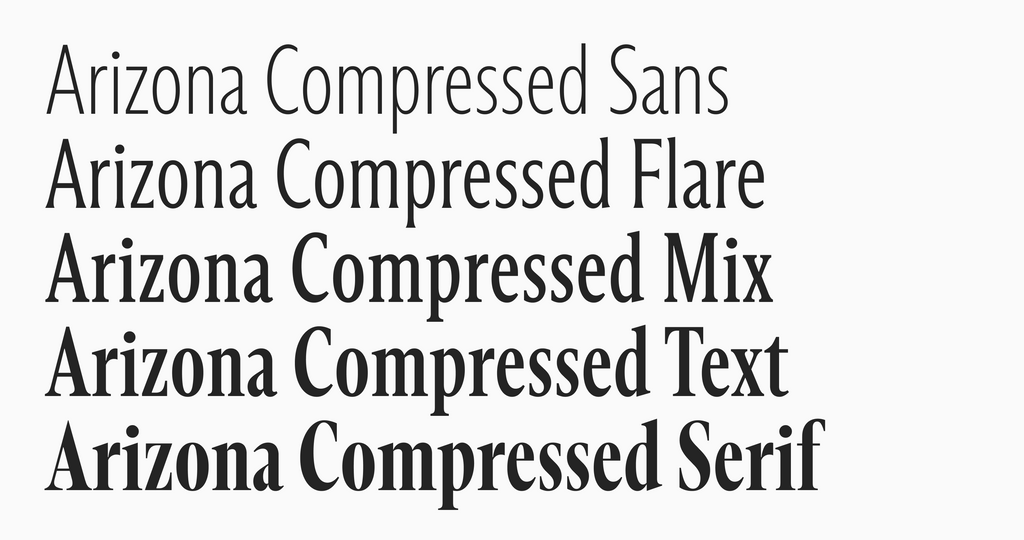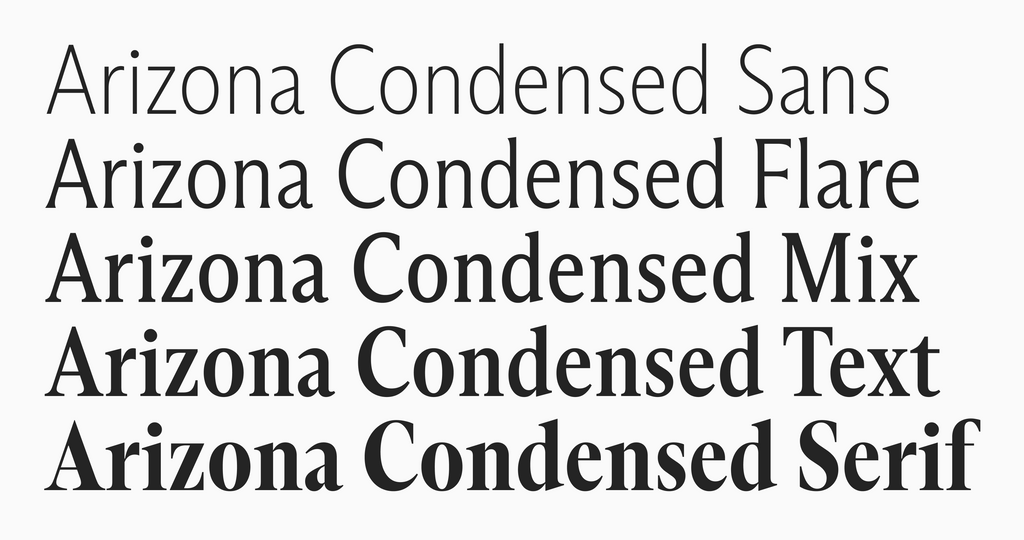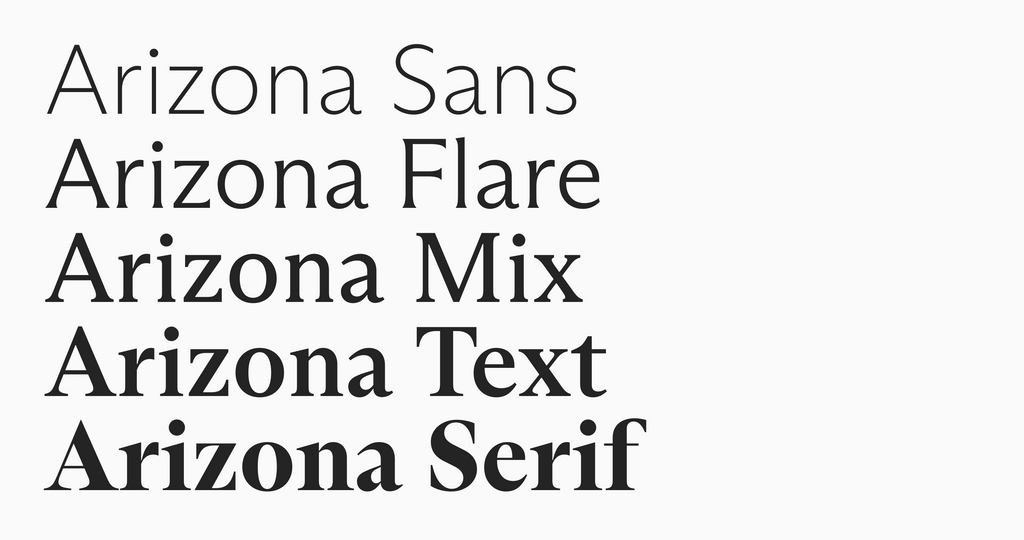
Arizona’s Design Space
Overview
ABC Arizona is a superfamily with 5 genres and 150 styles, split between 3 widths:
- Arizona
- Arizona Condensed
- Arizona Compressed
Each comes with Thin, Light, Regular, Medium, and Bold weights, plus Italics.
Five in One
The whole idea about Arizona is that it merges five genres into a single unified, family, organized into five subfamilies: Serif, Text, Mix, Flare, and Sans.
Sans -> Serif
Within each width, you can move seamlessly between sans and serif across five distinct genres: Sans, Flare, Mix, Text, and Serif.
So within the Condensed width, you have:
- Arizona Sans Condensed
- Arizona Flare Condensed
- Arizona Mix Condensed
- Arizona Text Condensed
- Arizona Serif Condensed
Same goes for the Compressed width:
- Arizona Sans Compressed
- Arizona Flare Compressed
- Arizona Mix Compressed
- Arizona Text Compressed
- Arizona Serif Compressed
The Variable Fonts
As the design space is very large, and you might not need all of it, we organized different sections of Arizona into different variable font files. There are four tiers.
Superfamily
This package contains e.v.e.r.y.t.h.i.n.g aka has the entire designspace in one file. It covers all four variable axes: weight (wght), slant (slnt), serif (SRFF), and width (wdth). We offer this package as a trial font, so you can discover the entire range and decide which axes you actually need.
Single-width VFs
All five genres at a fixed width:
- ABC Arizona Variable
- ABC Arizona Condensed Variable
- ABC Arizona Compressed Variable.
Variable axes:
weight (wght), slant (slnt), and serif (SRFF).
Multi-width VFs
All three widths at a fixed genre position:
- ABC Arizona Sans Width Variable
- ABC Arizona Flare Width Variable
- ABC Arizona Mix Width Variable
- ABC Arizona Text Width Variable
- ABC Arizona Serif Width Variable.
Variable axes:
weight (wght), slant (slnt), and width (wdth).
Individual VFs
One genre at a fixed width, for example:
- ABC Arizona Flare Variable
- ABC Arizona Flare Condensed Variable
- ABC Arizona Flare Compressed Variable
Variable axes:
weight (wght) and slant (slnt).